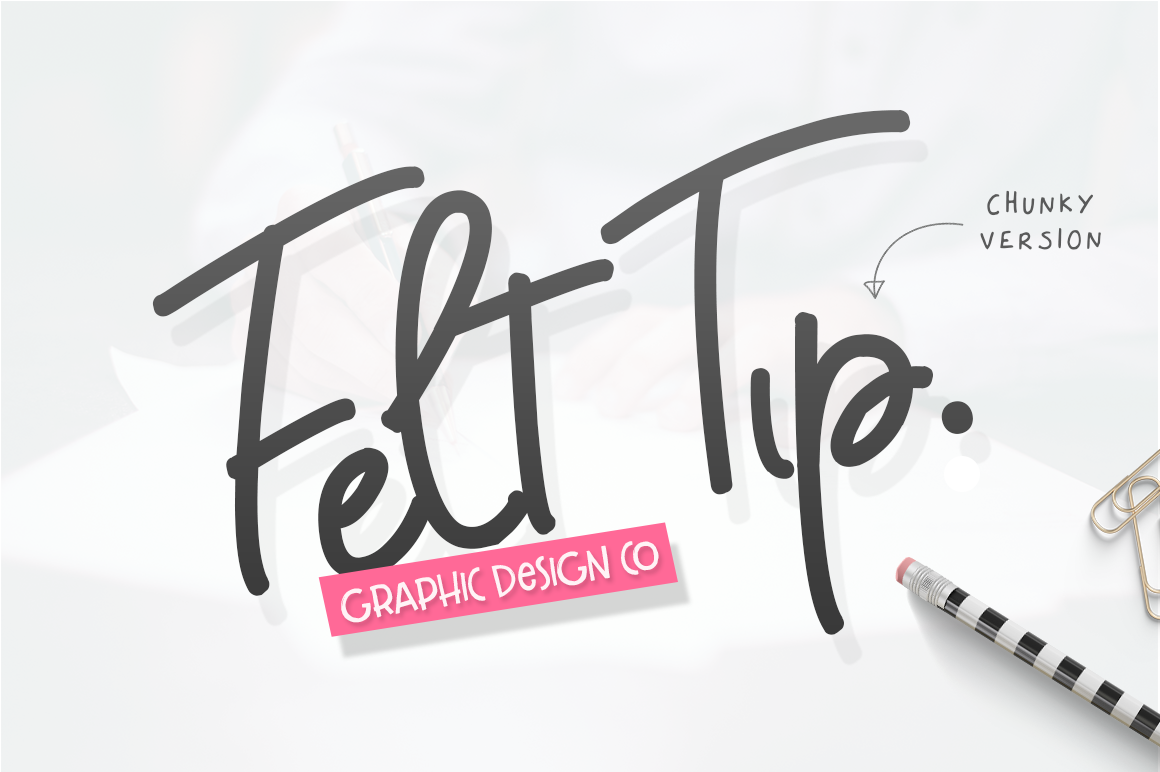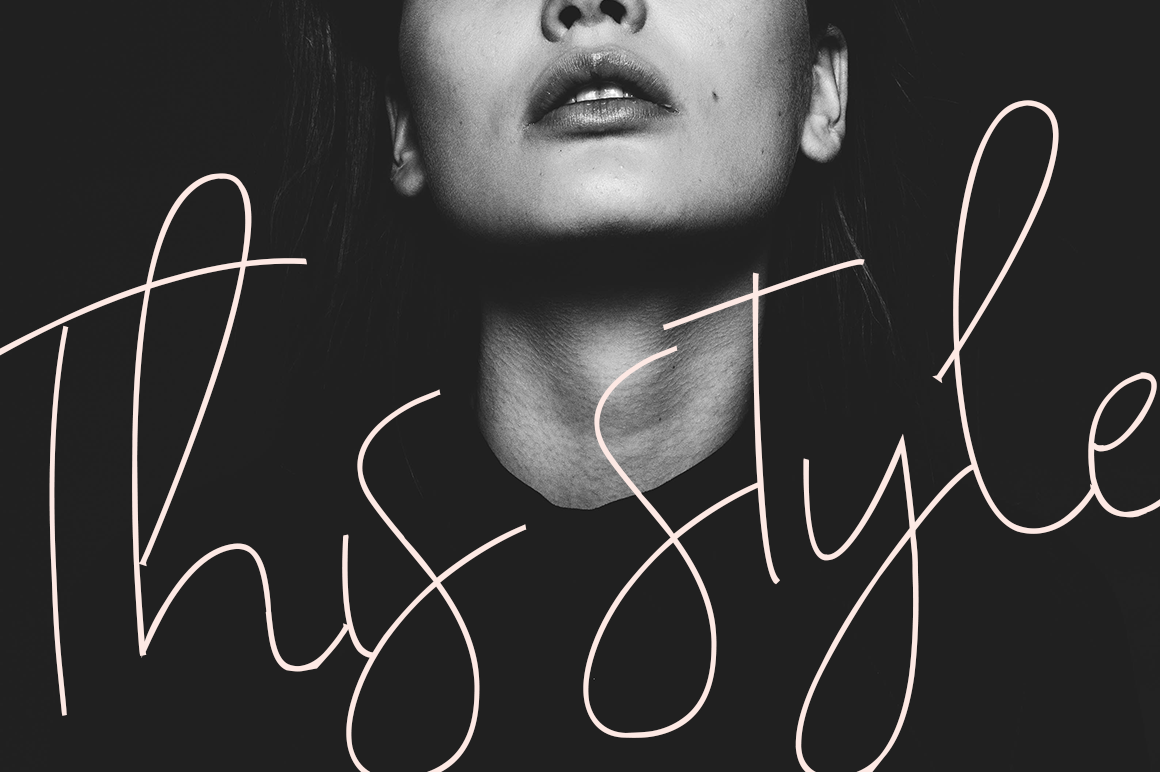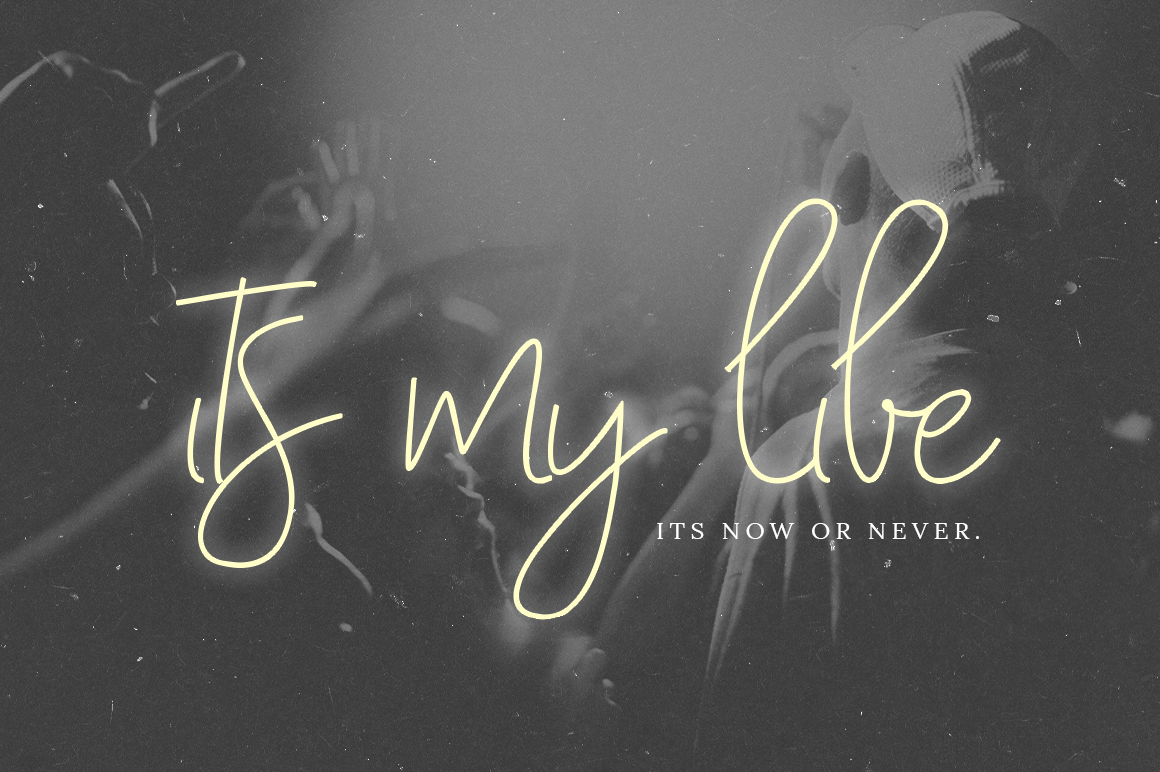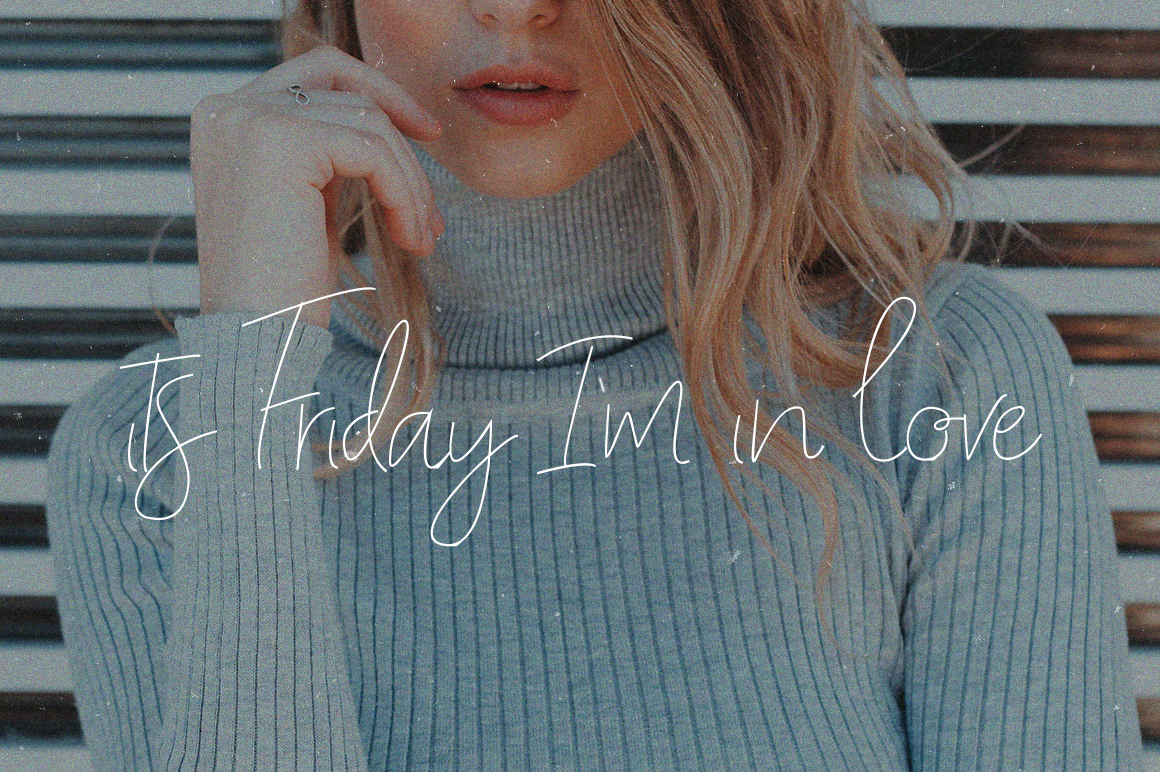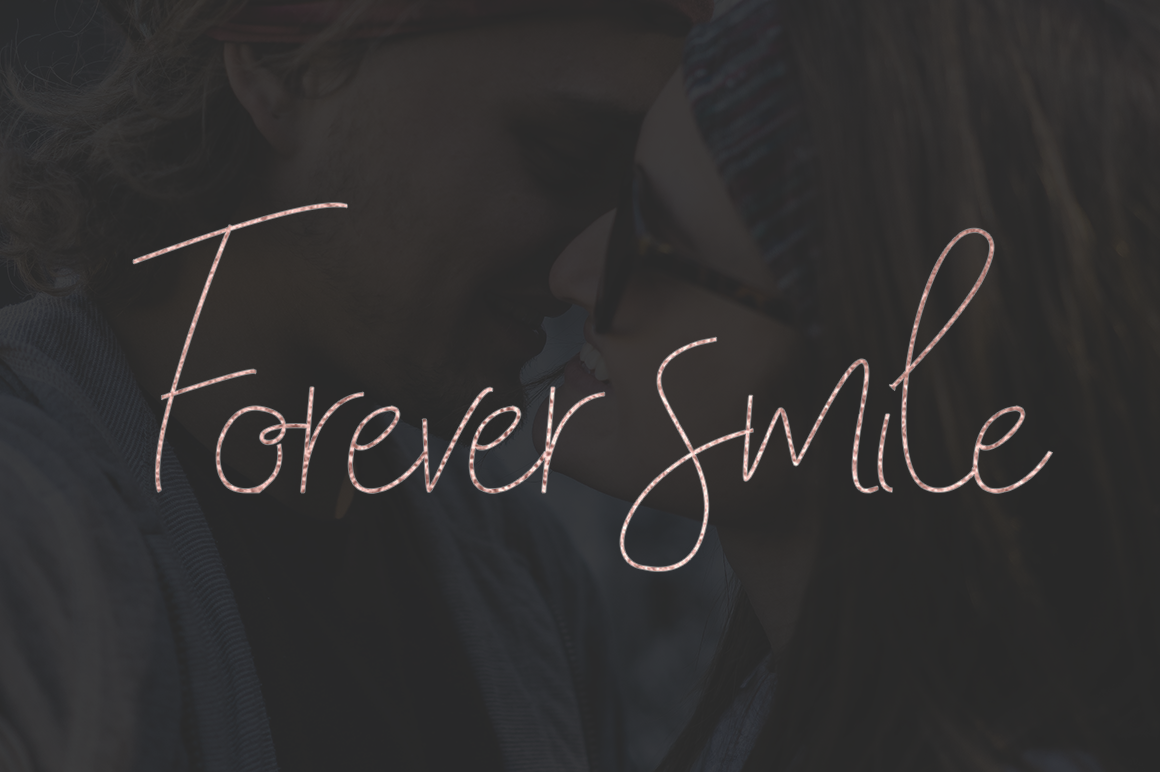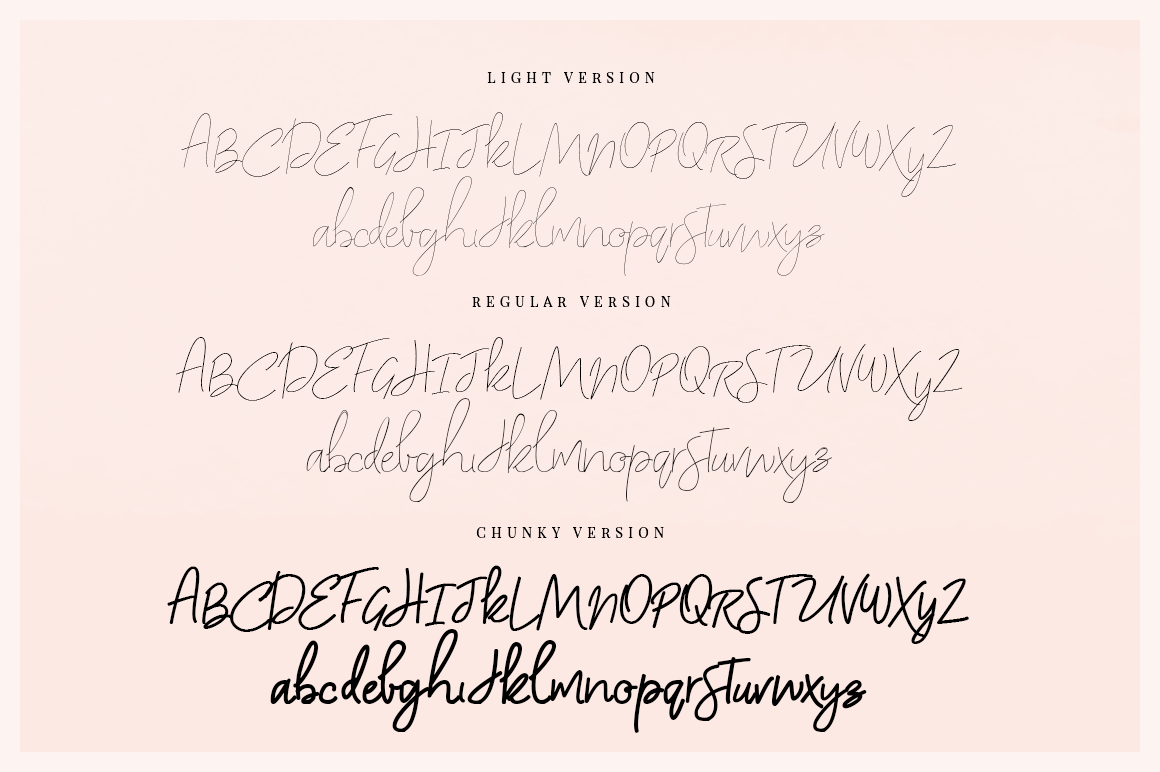
With My Love Script Font
Introducing the stunning script font ‘With my love’. Evoking whimsical feelings of love and happiness whilst maintaining a preppy blog style.
Perfect for ‘hand-drawn’ logos and stand out headers. The three weights: Light, Regular and Chunky can help you create a clear and concise project from start to finish.